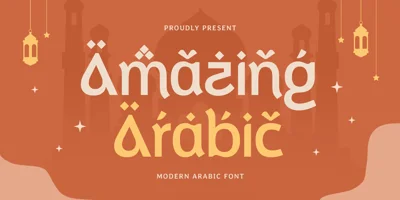
Amazing Arabic Font
Amazing Arabic Font is perfect for Islamic cultural center branding, Arabic calligraphy exhibitions, Middle Eastern restaurant menus, mosque signage designs, Islamic art publications, Arabic language learning materials, cultural heritage museums, international business communications, diplomatic correspondence, multicultural event promotions, and any project that requires authentic Arabic character with elegant Islamic sophistication.
What makes Amazing Arabic Font exciting is its masterful celebration of Arabic calligraphy traditions and Islamic artistic heritage through beautifully crafted letterforms that honor centuries of Arabic typography excellence while embracing contemporary design functionality. This sophisticated typeface features flowing curves with traditional calligraphic elegance that convey cultural respect, artistic beauty, and linguistic authenticity. The font's Arabic character adds instant cultural credibility and Islamic artistic appeal to any design, making it perfect for organizations celebrating Middle Eastern heritage and Arabic language excellence.
Amazing Arabic Font comes in multiple font families including Regular, Bold, Light, Condensed, Calligraphic, and Traditional variations, offering designers comprehensive options to create cultural compositions and achieve the perfect Arabic aesthetic for Middle Eastern-focused design projects.
Whether you're developing Islamic cultural branding, creating Arabic educational materials, or designing Middle Eastern campaign graphics, Amazing Arabic Font provides the ideal solution for projects demanding authentic Arabic character and Islamic artistic sophistication. This elegant typeface excels in both print and digital applications where cultural presence is essential, ensuring your designs communicate Arabic linguistic beauty and Islamic cultural respect. The calligraphic character and Arabic styling of Amazing Arabic Font make it an indispensable tool for designers who prioritize Islamic culture, Arabic language, and Middle Eastern artistic heritage in their typographic selections.